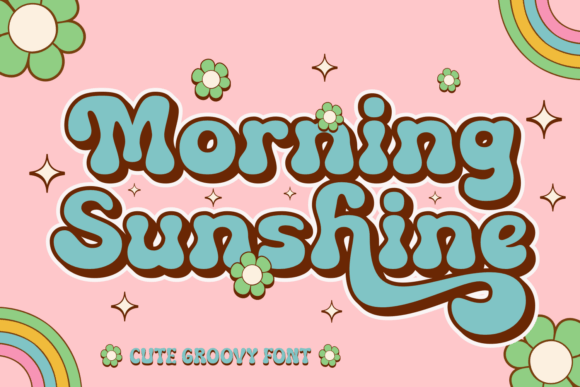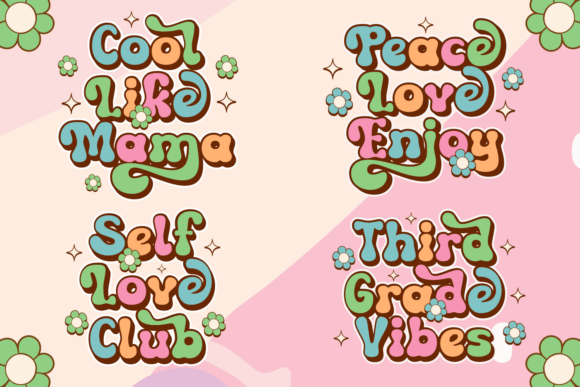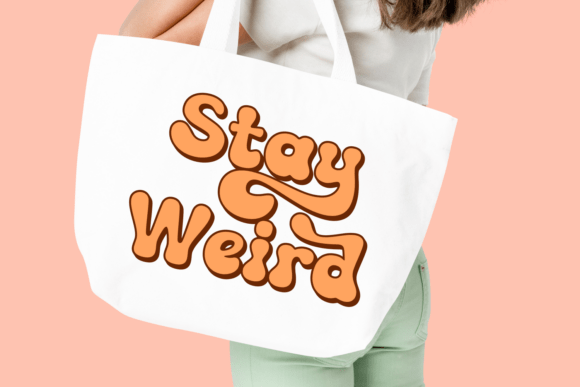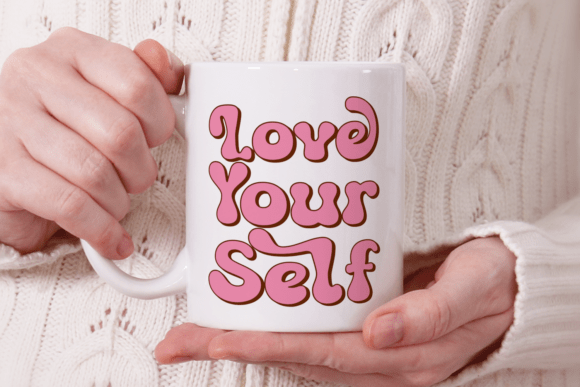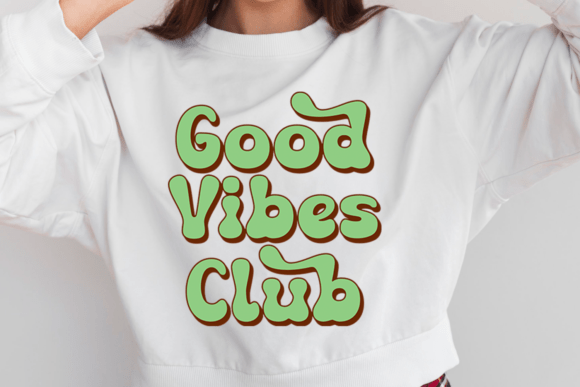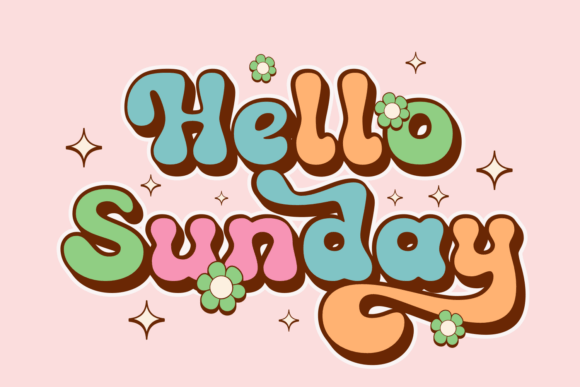
Introduction to Retro Shade Font Font
Fonts play a crucial role in design, and the Retro Shade Font font is a typeface that brings both character and versatility to any project. Whether you’re working on a branding project, a website, or a print design, the Retro Shade Font font offers a unique style that can elevate your work.
Discover the striking βRetro Shade,β a versatile spectacle in display fonts.
Modeled in the spirit of retro and groovy accents, this typeface breathes life into branding and beyond The nostalgic echoes of this font make it suitable for every authentic representation, from apparel to book covers.
Key Features of Retro Shade Font Font
Why Choose Retro Shade Font Font?
The Retro Shade Font font is more than just a typeface β it’s a design tool that helps you communicate your message with style and clarity. Its unique character set and versatile design make it suitable for a wide range of applications, from elegant invitations to bold headlines.
With its carefully crafted letterforms and balanced proportions, the Retro Shade Font font ensures readability and visual appeal across all mediums.
What makes Retro Shade Font font special?
The Retro Shade Font font stands out with its unique design, exceptional readability, and versatility across various design applications.